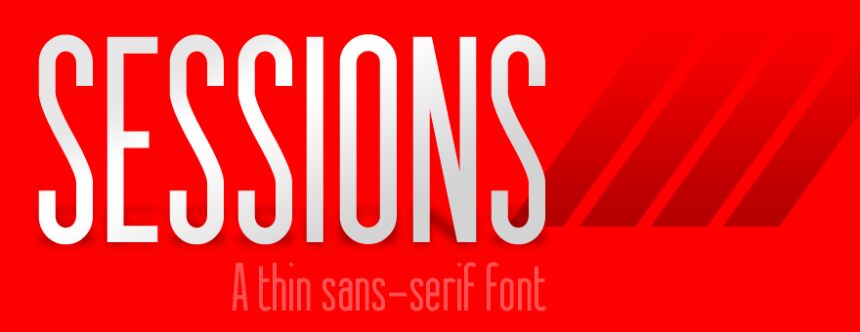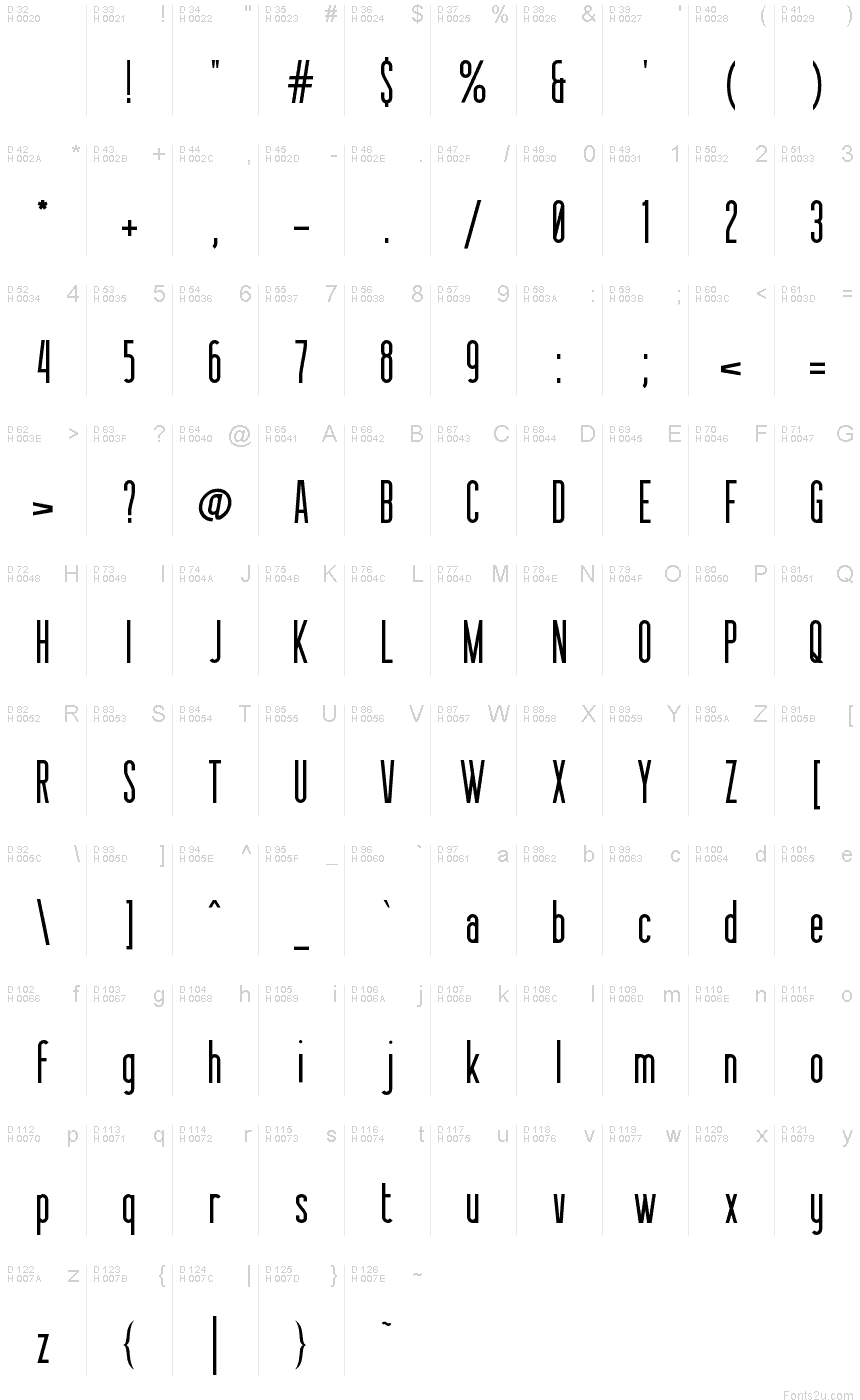
Sessions
This is a workhorse, multipurpose sans-serif font that's ready to grind axes and burn candles at both ends.
This font dares you to not find a use for it.